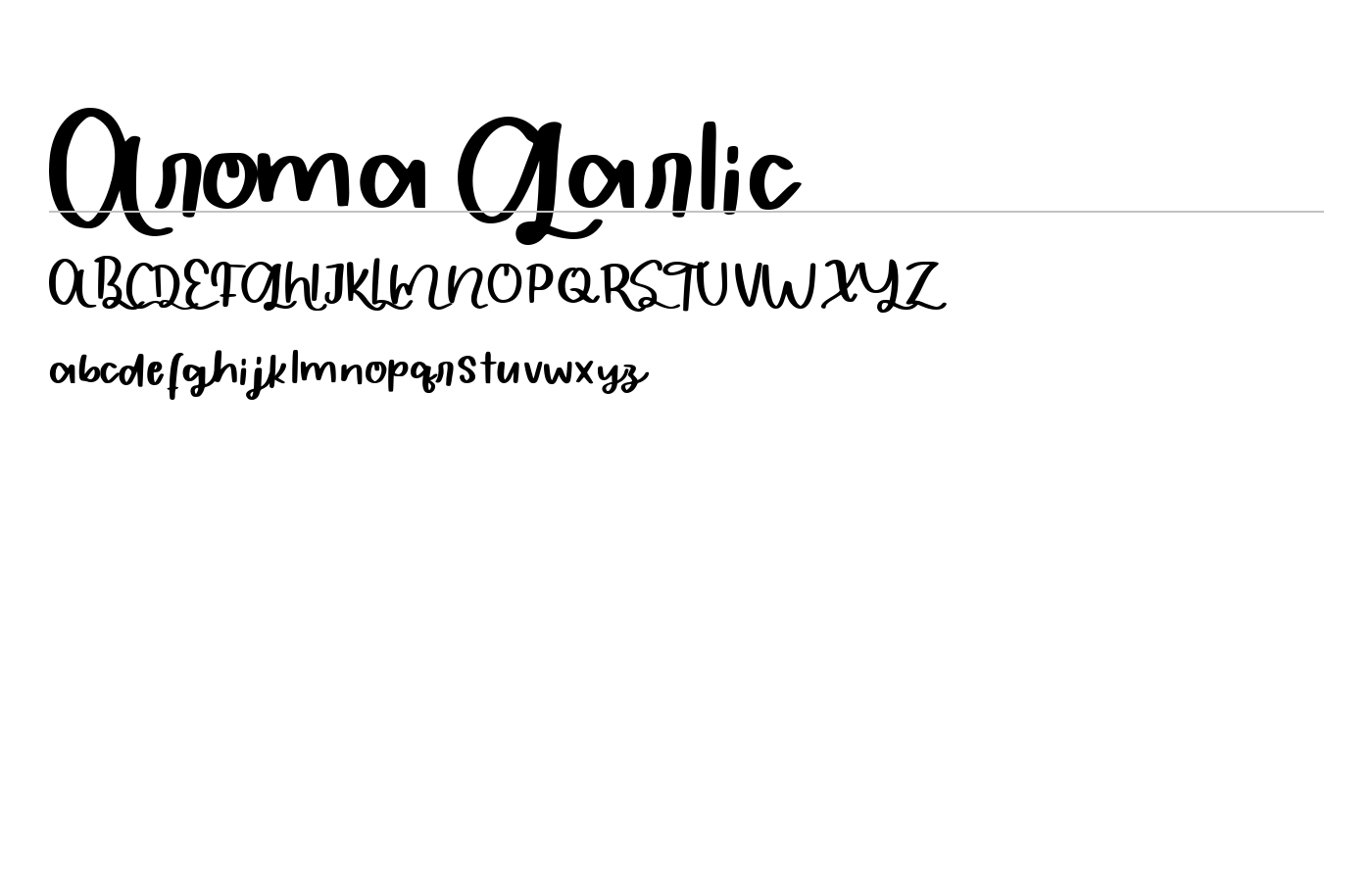
Aroma Garlic is a playful and lively script font with a hand-drawn feel, featuring smooth, rounded strokes and quirky letterforms that add personality and charm. Its casual yet distinctive style makes it perfect for creative branding, invitations, and packaging that seek an approachable and friendly vibe. This font’s unique character shapes and warm curves lend a personal touch that stands out in both digital and print projects.
Aroma Garlic Font
About Aroma Garlic Font